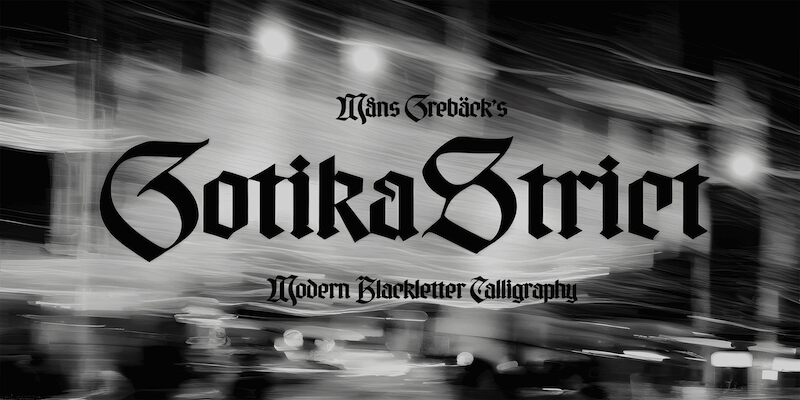
Gotika Strict PERSONAL USE Regular
Gotika Strict, designed by Mans Greback, is a gothic semi-bold font that exudes a medieval feel. Its sharp edges and intricate details make it perfect for projects that require a touch of mystery and darkness. Use it for anything from book covers to movie posters to logos for your favorite fantasy RPG game. This font is versatile enough to add an air of sophistication to any project while still maintaining its gothic charm. With its bold appearance, Gotika Strict will catch the eye and leave a lasting impression on anyone who sees it.
Inspired by ancient manuscripts and the unique geometry found in medieval architecture, Gotika Strict is merging old-world charm with contemporary sensibilities.